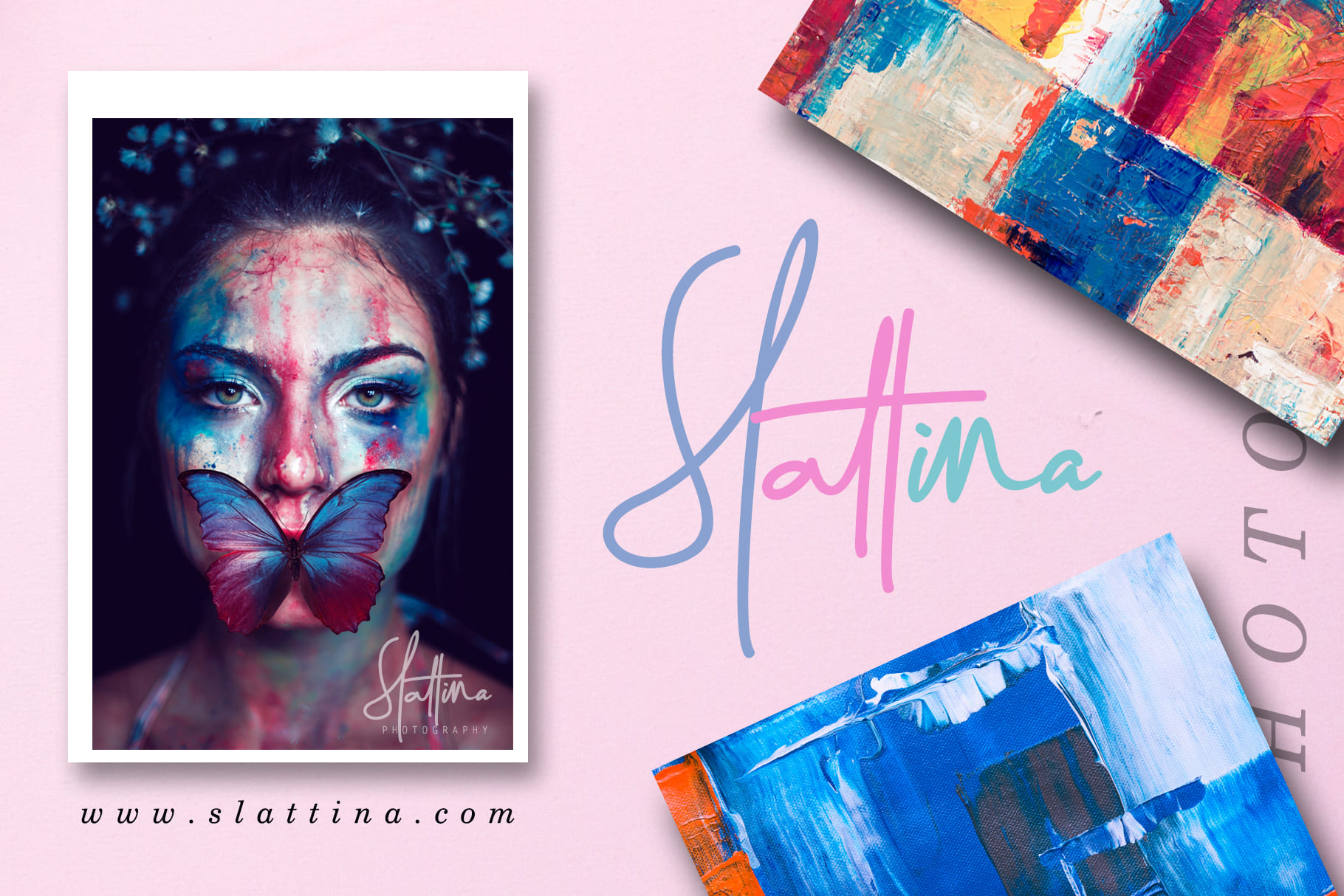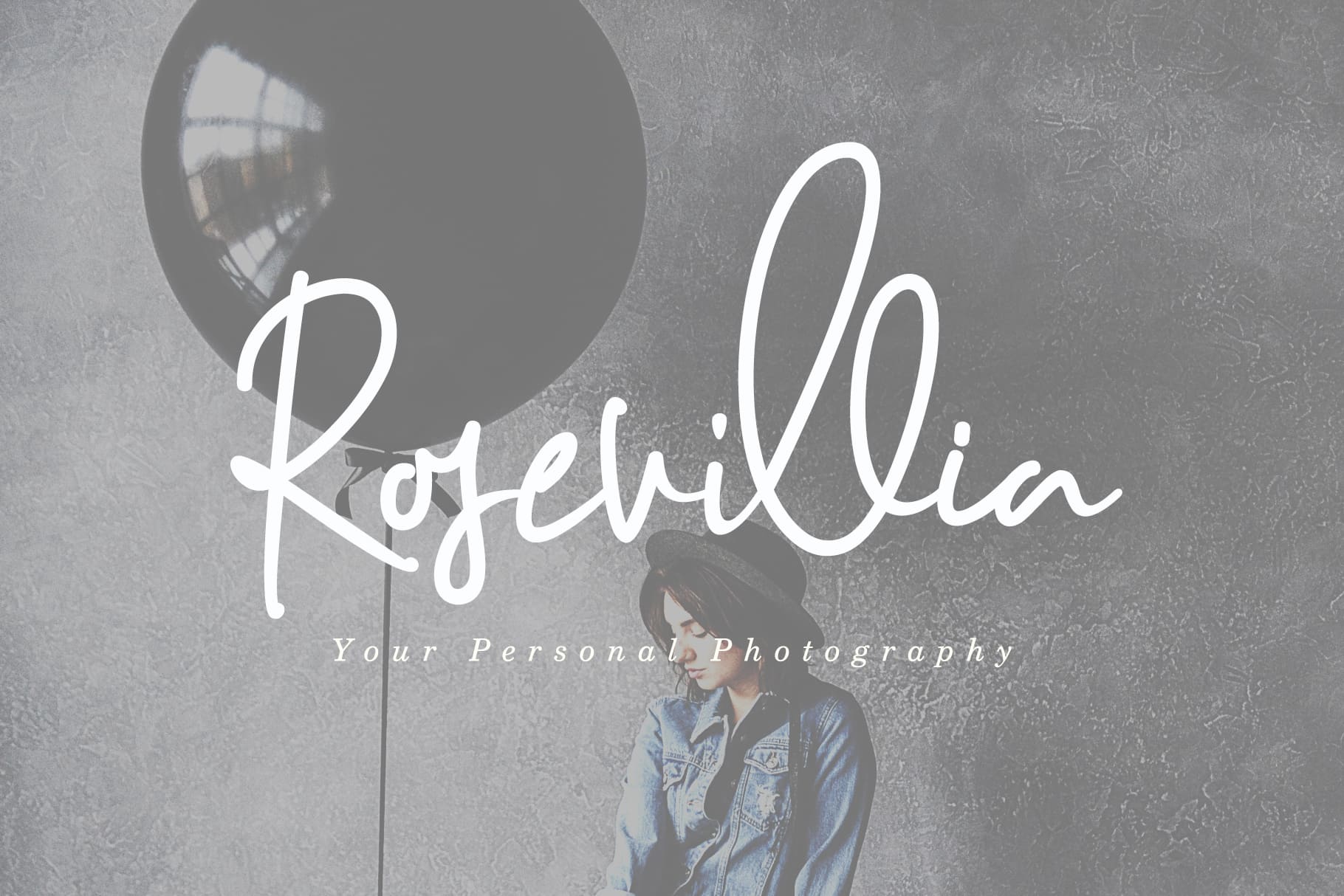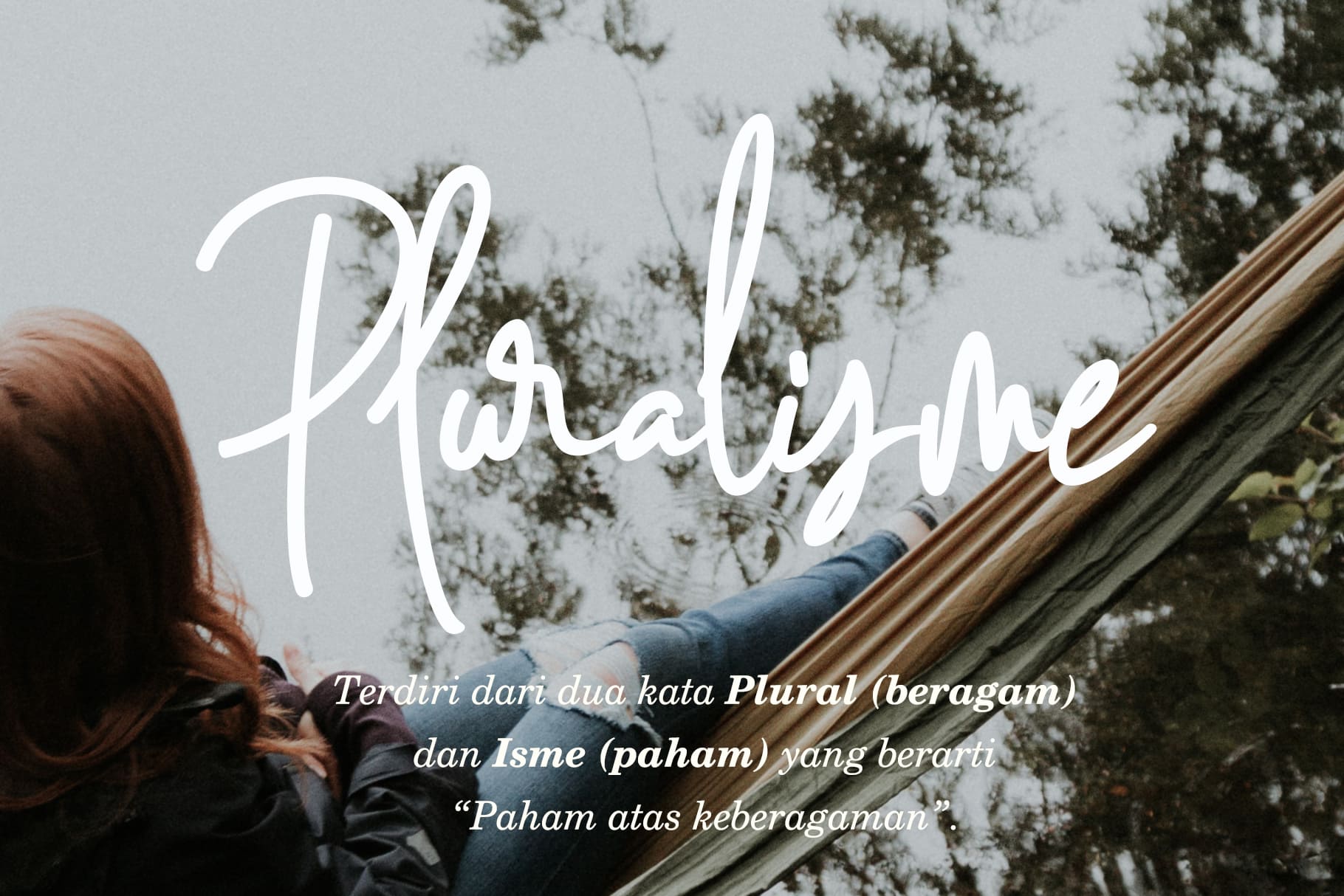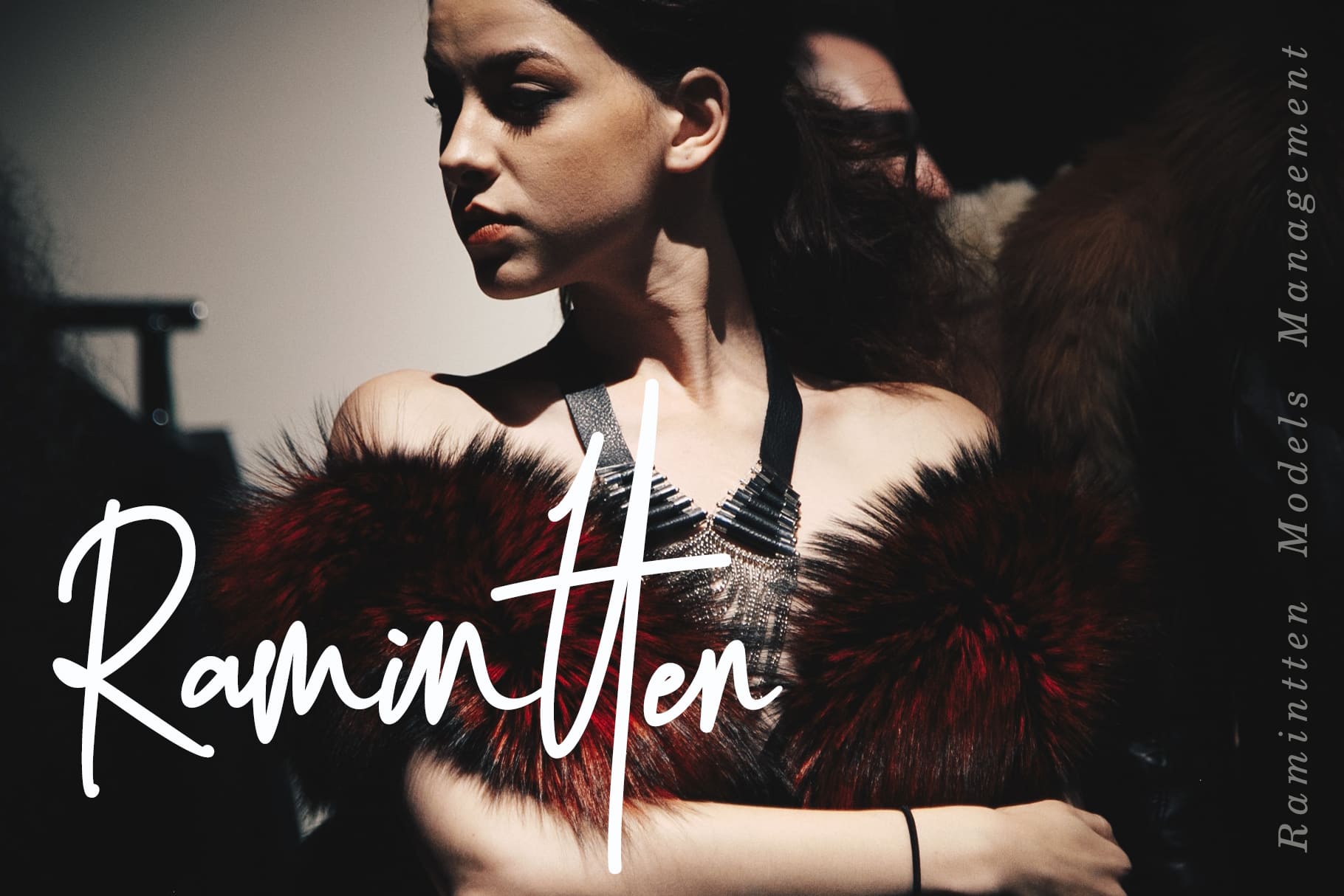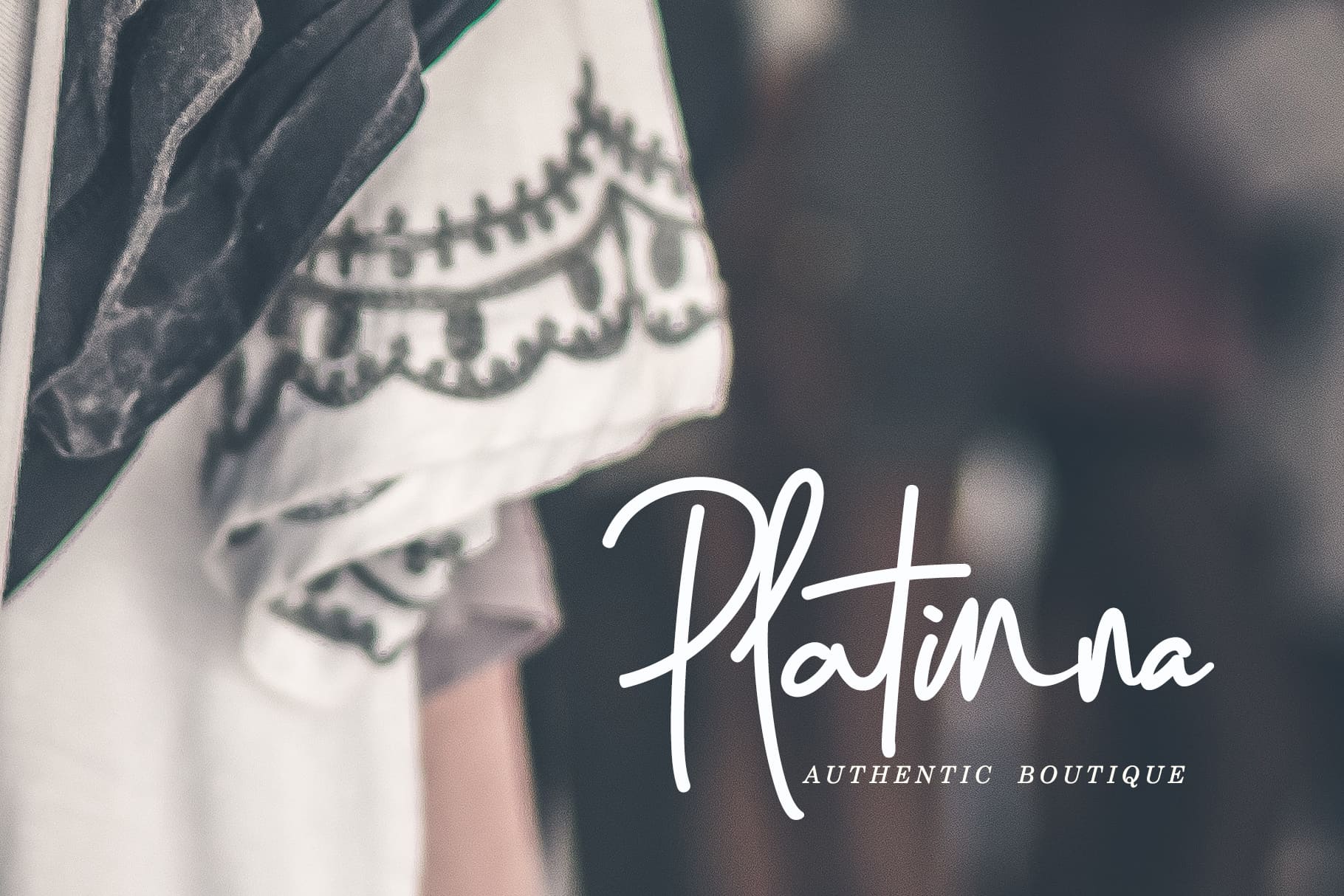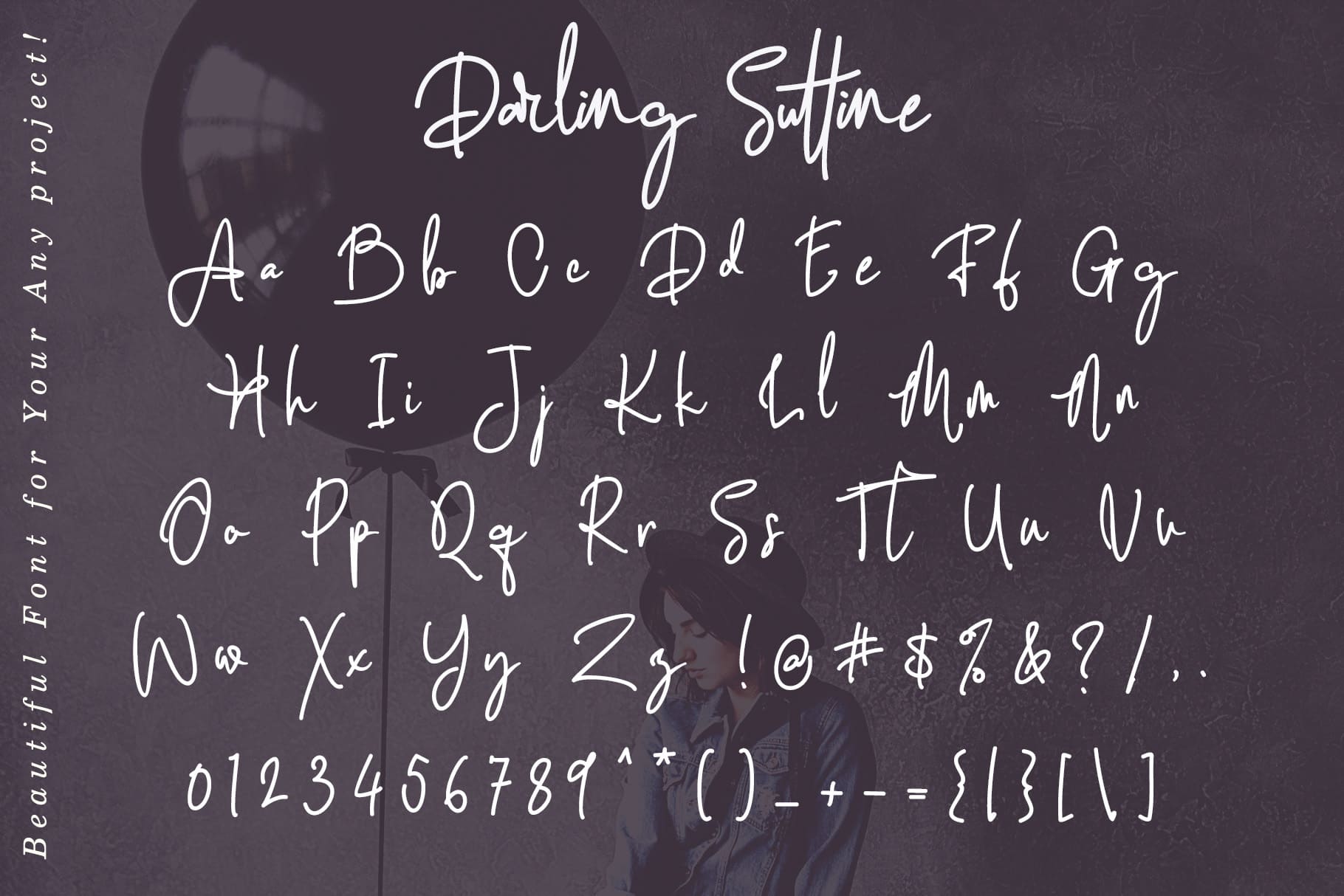
Darling Suttine Family (2 fonts)
From AldeDesign
Each font has:
- Stylish handwritten style
- Many special ligatures
- Multilingual support
AldeDesign was founded by Alde Joox in Indonesia, Yogyakarta. AldeDesign specializes in affordable scripts from very casual to very elegant. The design group is obsessed with product quality, beauty, and application. The fonts are perfectly suited for headlines, invitations, fashion, and packaging design.